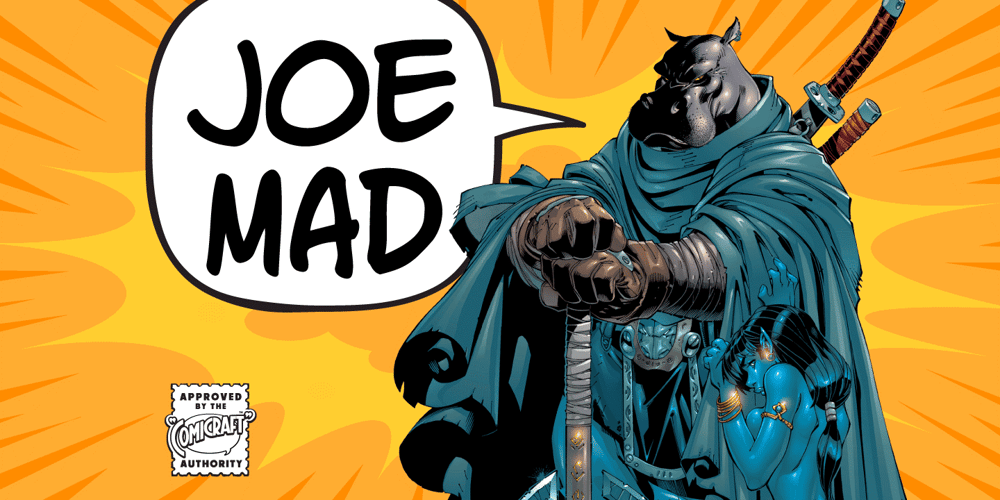
Joe Mad Font Family was designed by John Roshell and published by Comicraft. Joe Mad contains 4 styles and family package options. When Joe Madureira saw the custom font we’d created for Jim Lee, he called us up immediately and uttered the immortal words… “I Want One!” We were, of course, only too happy to oblige. Now, this very font, based upon Joe’s own handwriting, is available. Think about it, where else can you get a World Famous Comic Book Artist like Joe Madureira to work for you for under a hundred bucks?